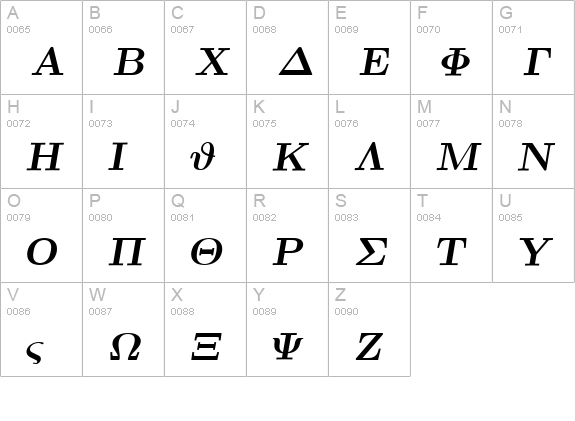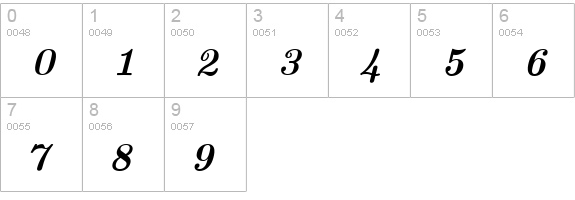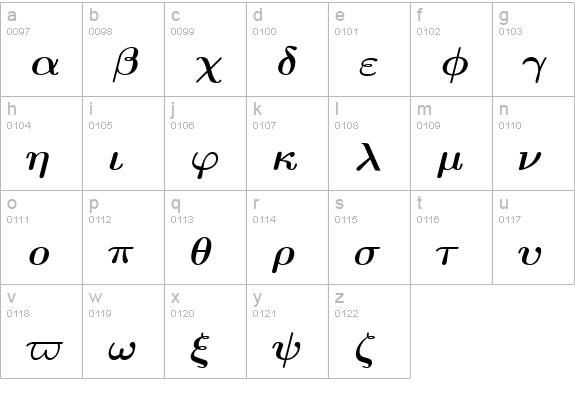
Euclid Symbol Bold Italic Font Details
Euclid Symbol Bold Italic is a strong, high-contrast, italic variant in the Euclid typeface family \xE2\x80\x94 well suited to headlines, attention-grabbing titles, and strong calls-to-action.
The Euclid Symbol Bold Italic font is a striking and elegant typeface that combines boldness with a touch of sophistication. Its sleek design and strong presence make it perfect for headlines, titles, and other attention-grabbing text. The bold italic style adds a dynamic flair to any project, making a bold statement while maintaining a sense of refinement. What sets the Euclid Symbol Bold Italic font apart is not just its aesthetic appeal, but also its versatility. Whether you're designing a poster, logo, website, or any other creative project, this font will elevate your work to the next level. Its clean lines and modern look ensure that your message will be conveyed with clarity and style. Best of all, the Euclid Symbol Bold Italic font is free to download at FontsMarket.com. This means that you can add this beautiful typeface to your font collection without any cost, allowing you to unleash your creativity without limitations. Don't miss out on the opportunity to enhance your designs with the Euclid Symbol Bold Italic font - download it now and see the difference it can make!